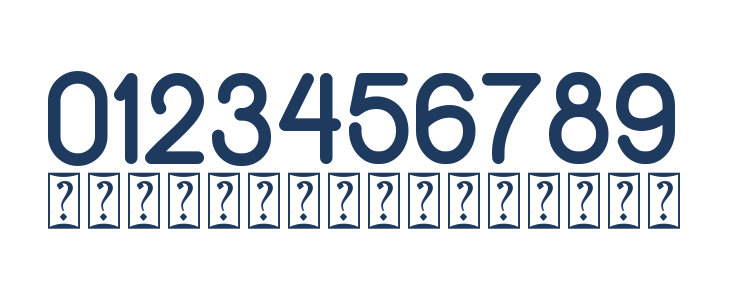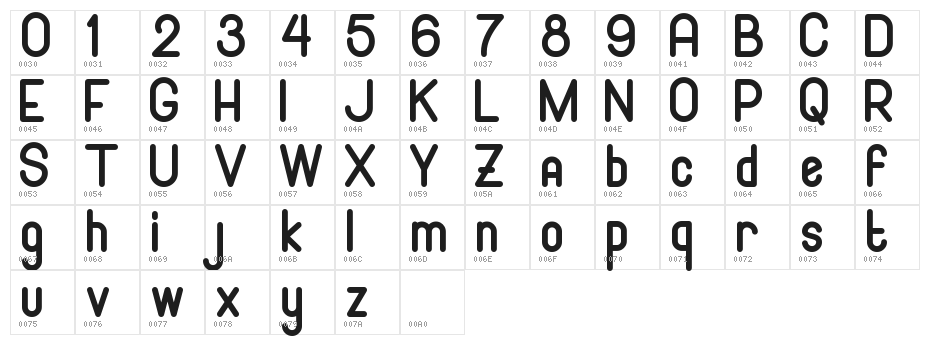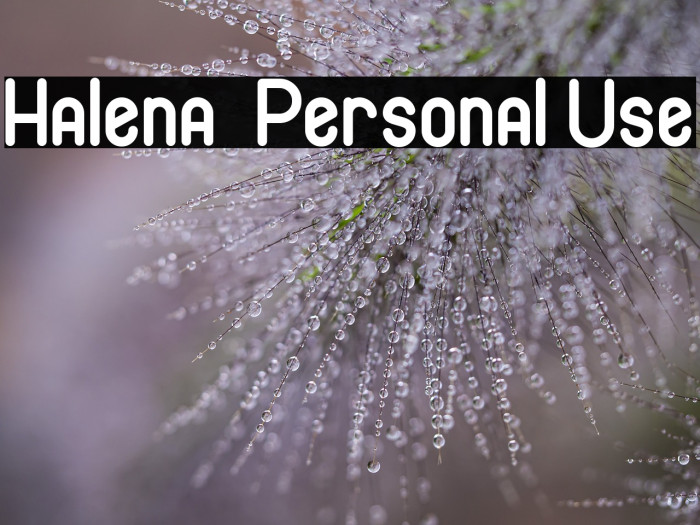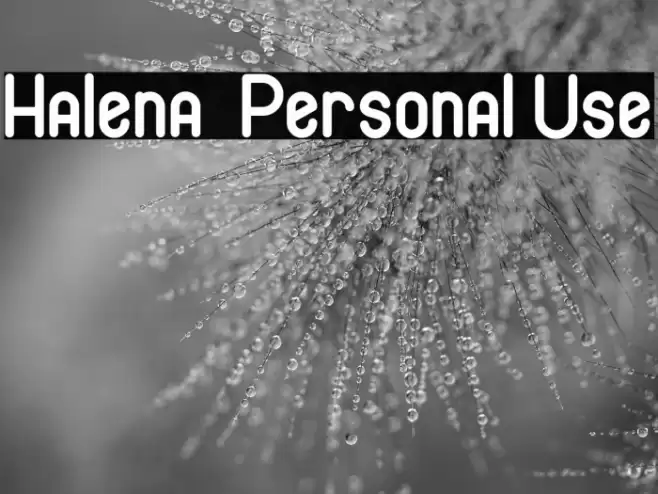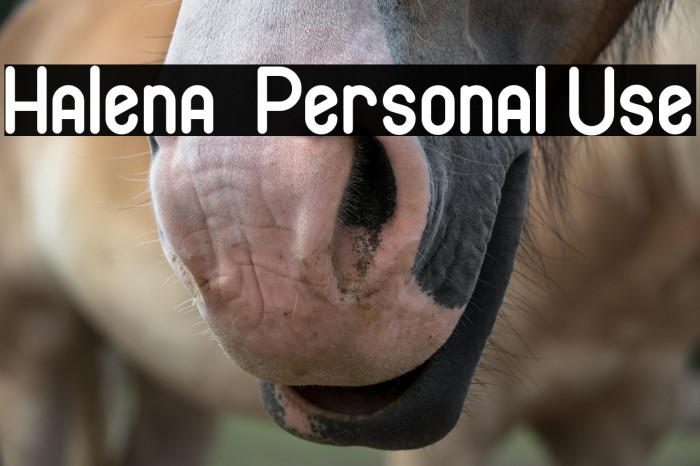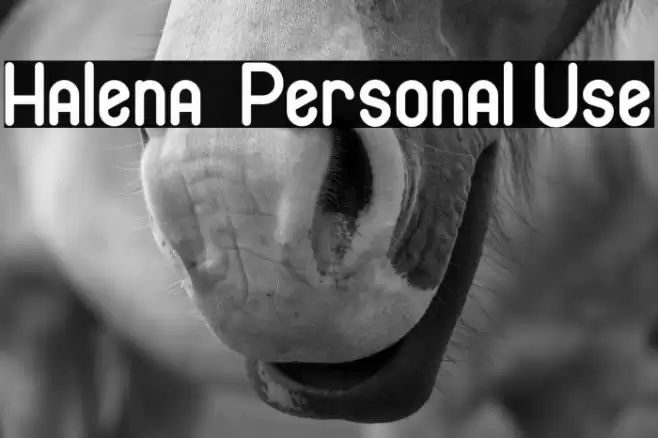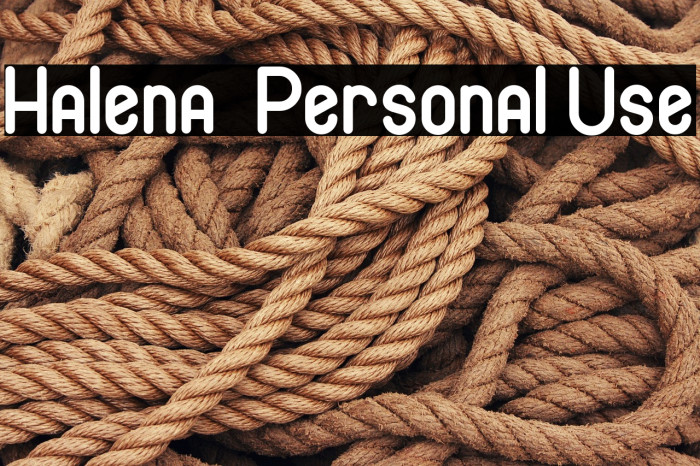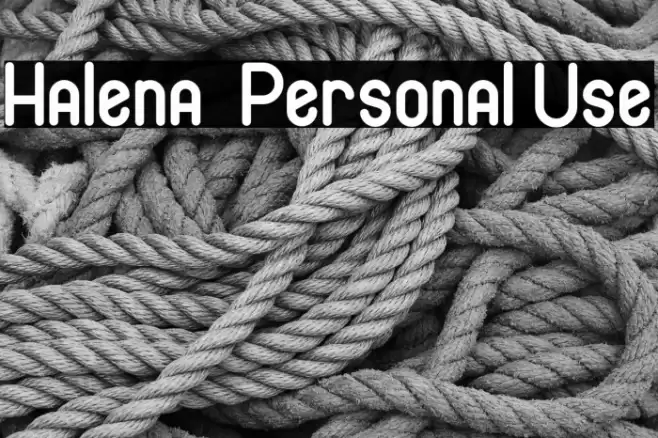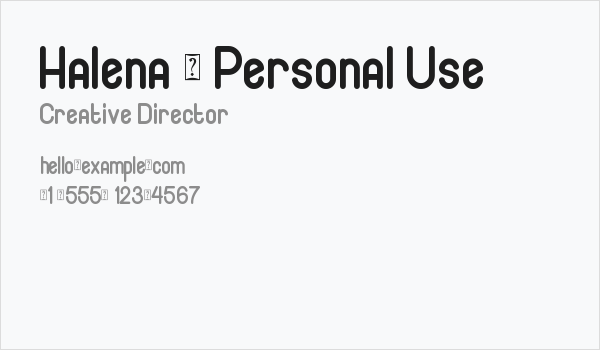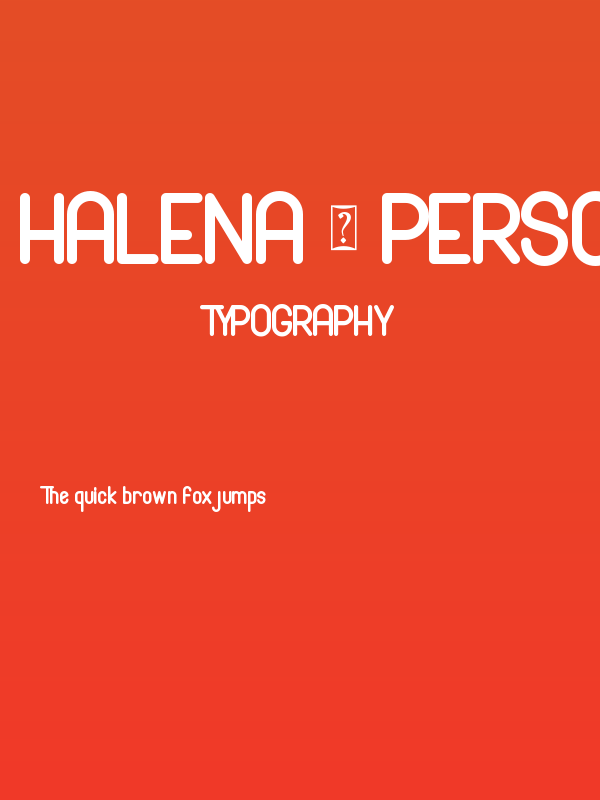
Halena - Personal Use Font
Halena - Personal Use Description
This font features a bold, rounded style with a modern and playful aesthetic. The characters are uniformly thick, giving it a strong presence. The rounded edges soften the overall look, making it approachable and friendly. The uppercase and lowercase letters maintain a consistent design, with smooth curves and a uniform stroke width. The numbers and special characters follow the same design principles, ensuring a cohesive appearance across all glyphs. This font's design is both functional and visually appealing, suitable for a variety of creative applications.
| Proposed Projects | Ideal for children's books, playful branding, posters, and social media graphics. |